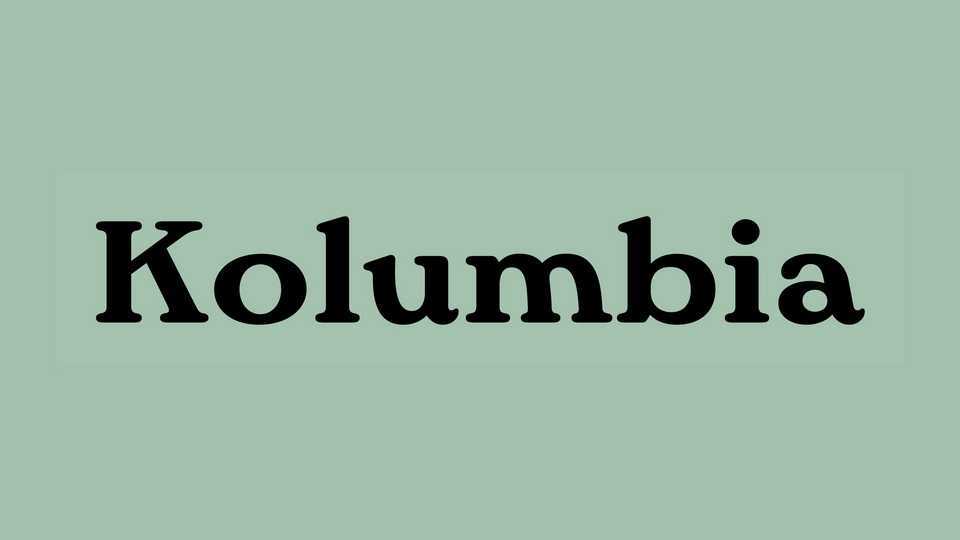
Download Colombia font, a serif title typeface based on the hand lettering from the cover of the Saturday Evening Post. Colombia works well for the composition of short content.
Designer: Borys Kosmynka